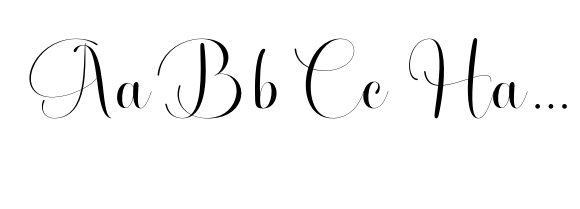
Beauty Valentinos
von TM Type
Die Schriftfamilie Beauty Valentinos wurde von Teuku Bustami entworfen und von TM Type veröffentlicht. Beauty Valentinos enthält 1 Stile.
Beauty Valentinos is a beautiful light handwritten font with a unique feel and a stunning impact. It will add a luxury spark to any design project you wish to create!
Über TM Type
My name is Teuku Bustami and designed my font with the name TM Type. founded in 2021, TM Type is a font design studio based in Aceh, Indonesia, now I am pursuing my new passion completely from my home studio. I draw letters and I love all forms of creativity. I love creating beautiful things and experimental typography and constantly learning new things.I launched my first font at the end of 2021. Since then I changed my frelance business to Type foundry.